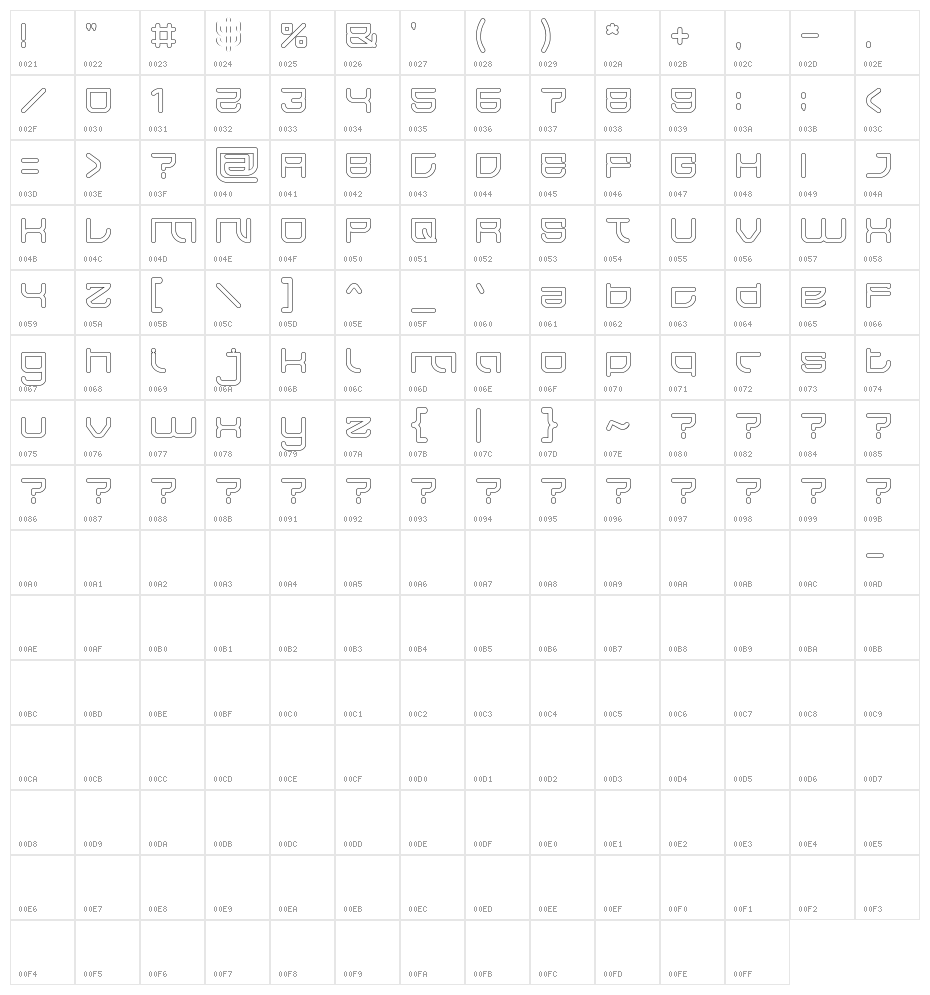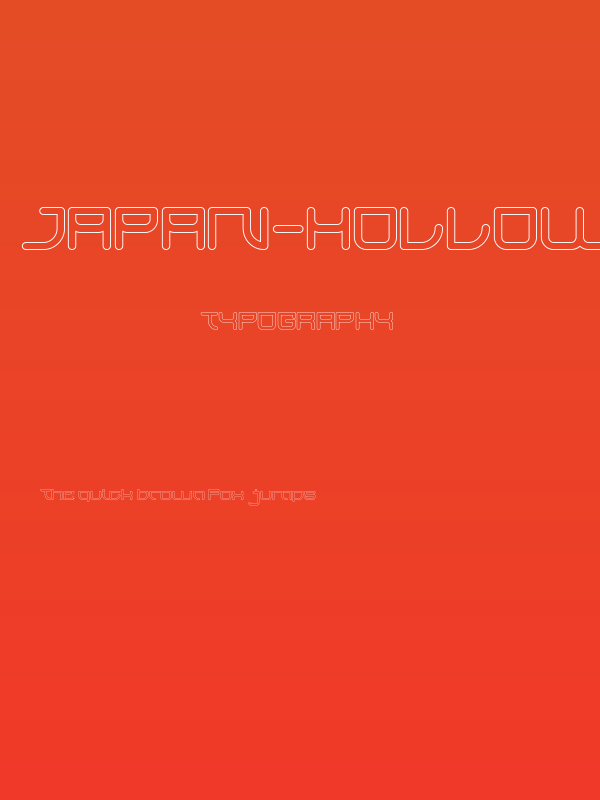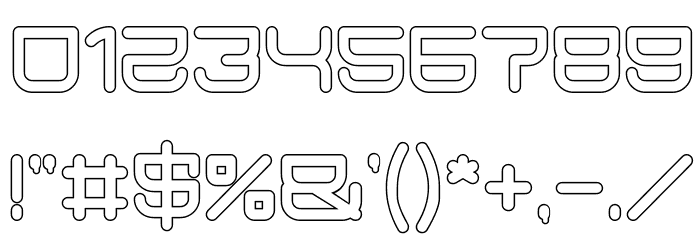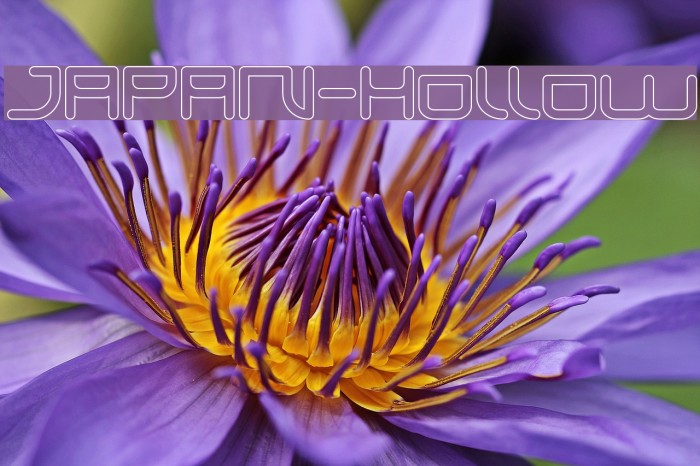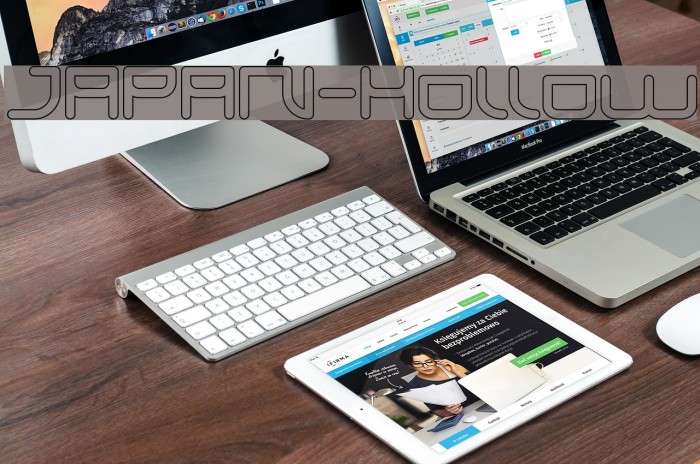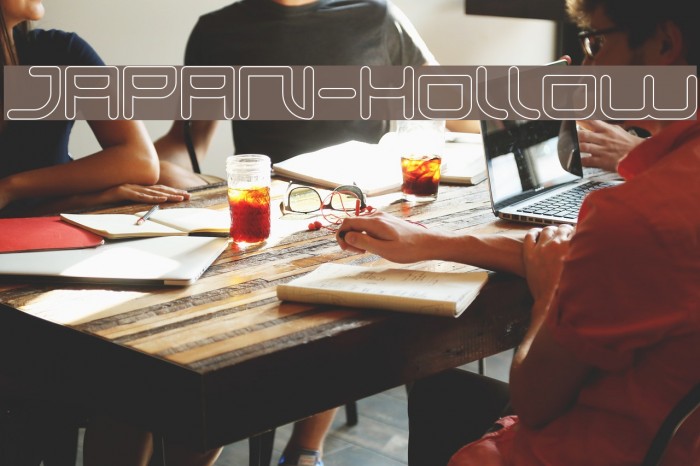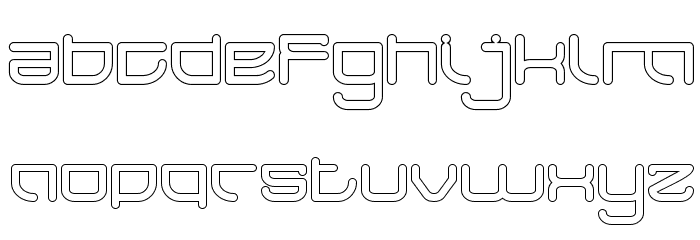
JAPAN-Hollow Font
JAPAN-Hollow Description
This font features a hollow, geometric design with a futuristic and minimalist aesthetic. Each character is outlined, creating a sense of openness and space within the letters. The uniform stroke width and rounded corners contribute to a modern and sleek appearance. The uppercase and lowercase letters maintain a consistent style, with a slight variation in height and width to distinguish them. Numbers and special characters are designed to match the overall theme, ensuring a cohesive look across all elements. This font is ideal for projects that require a contemporary and innovative touch.
| Use Case | Logos, Headlines, Posters |
| Proposed Projects | Ideal for tech branding, modern posters, digital interfaces, and futuristic-themed designs. |